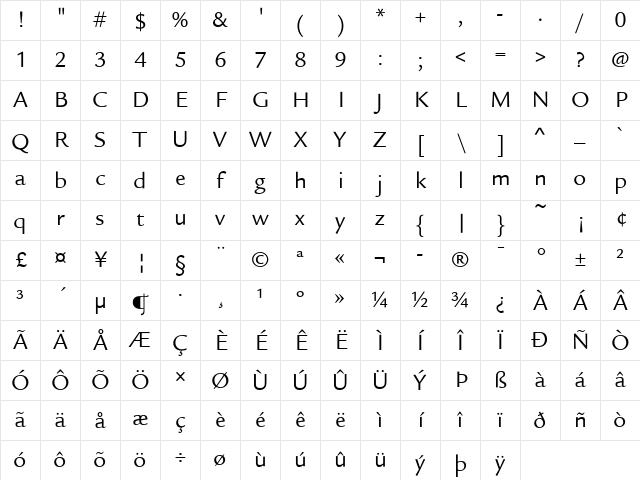
LegacySanITCBoo Regular
Complete LegacySanITCBoo Regular glyph index. Displaying only characters natively supported by LegacySanITCBoo Regular font.
Design Context for LegacySanITCBoo
LegacySanITCBoo is a composed and adaptable typeface that performs quietly and consistently across a wide range of design contexts.